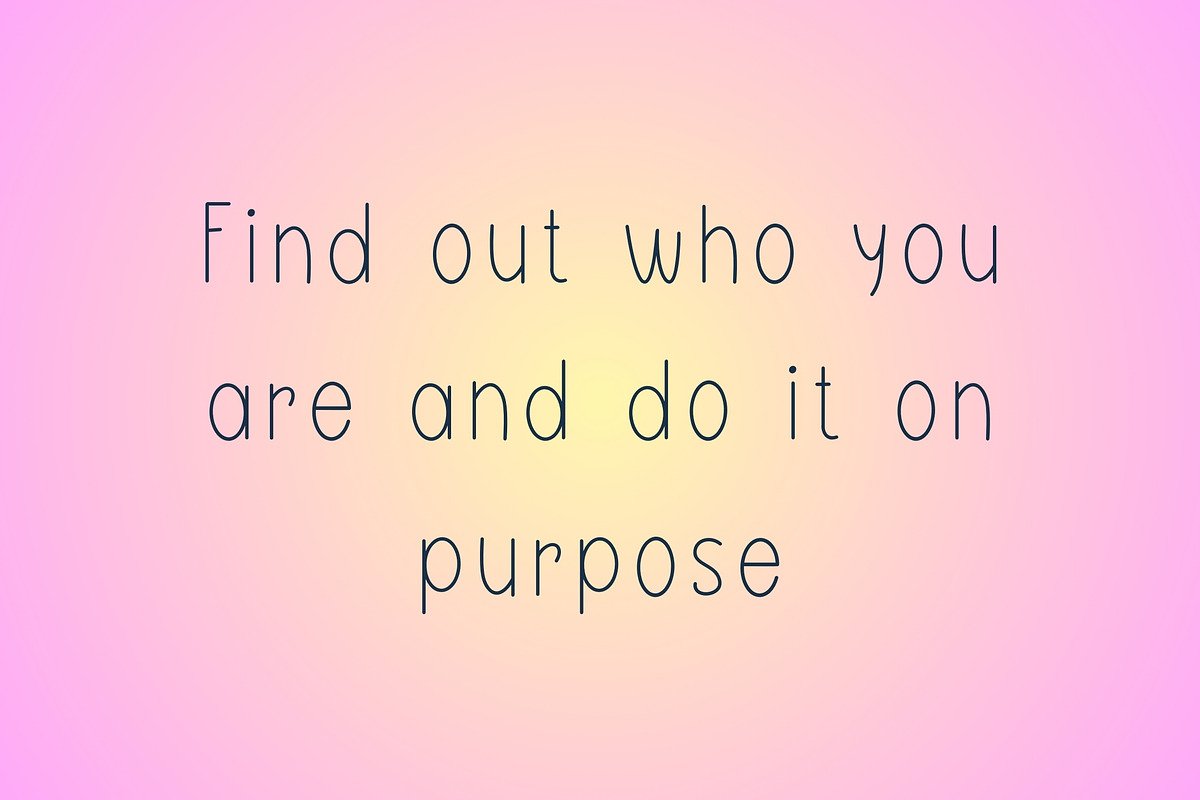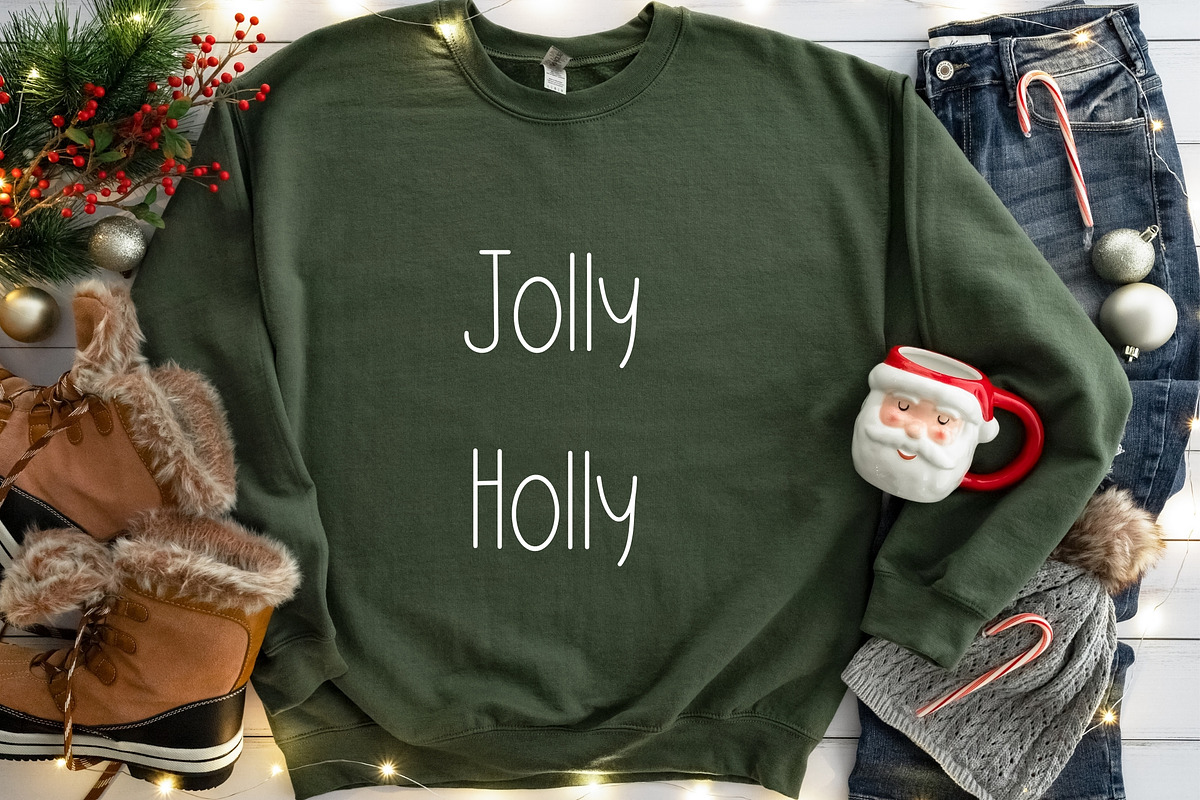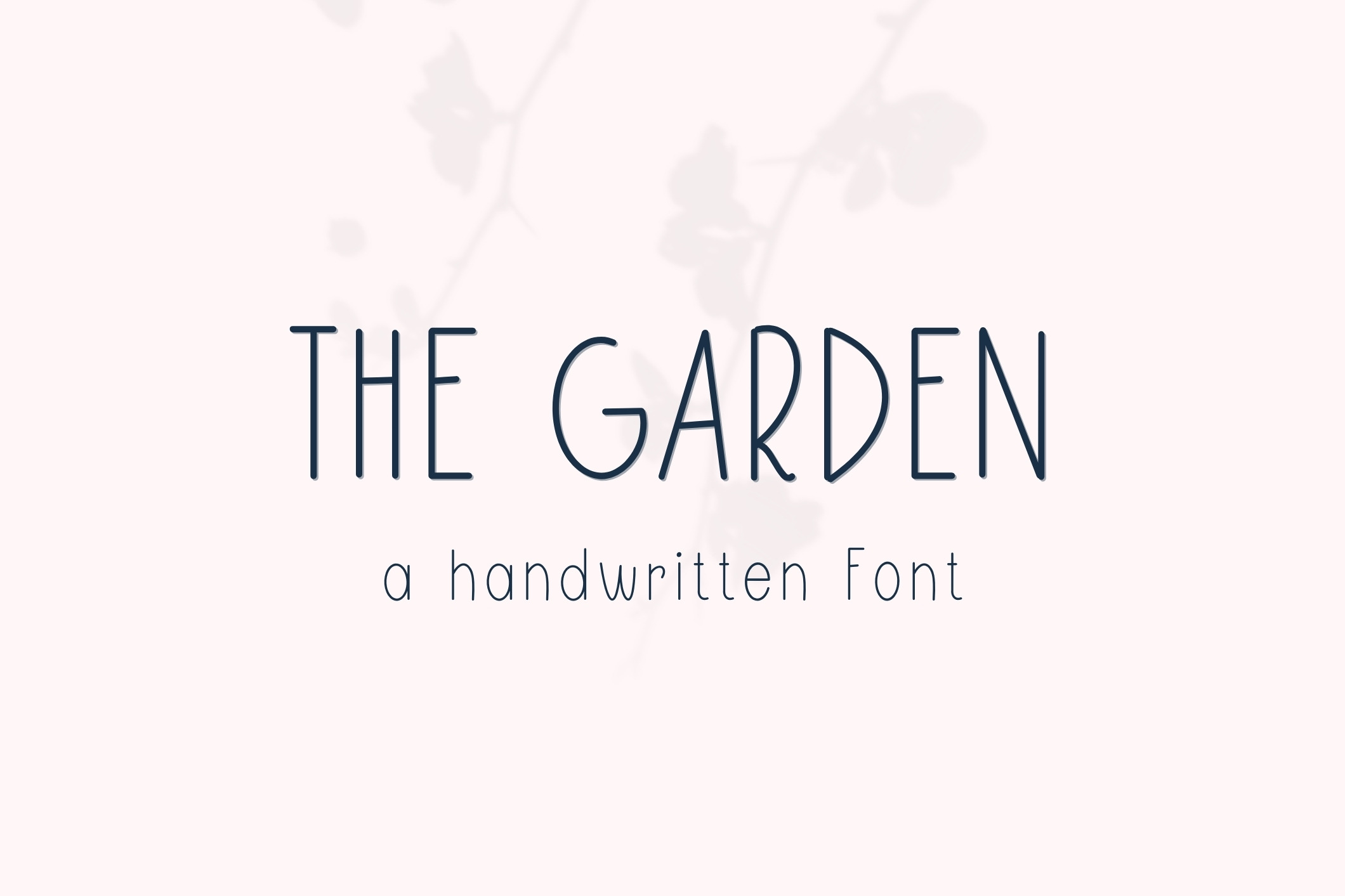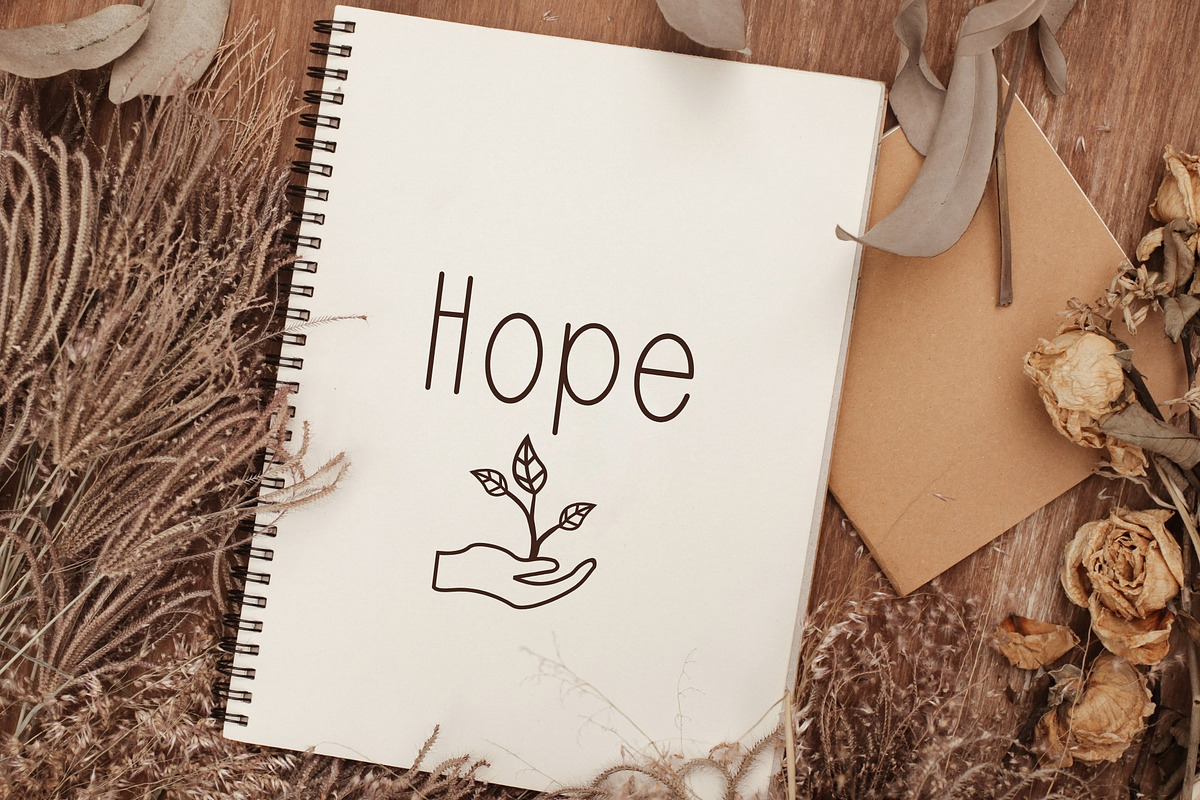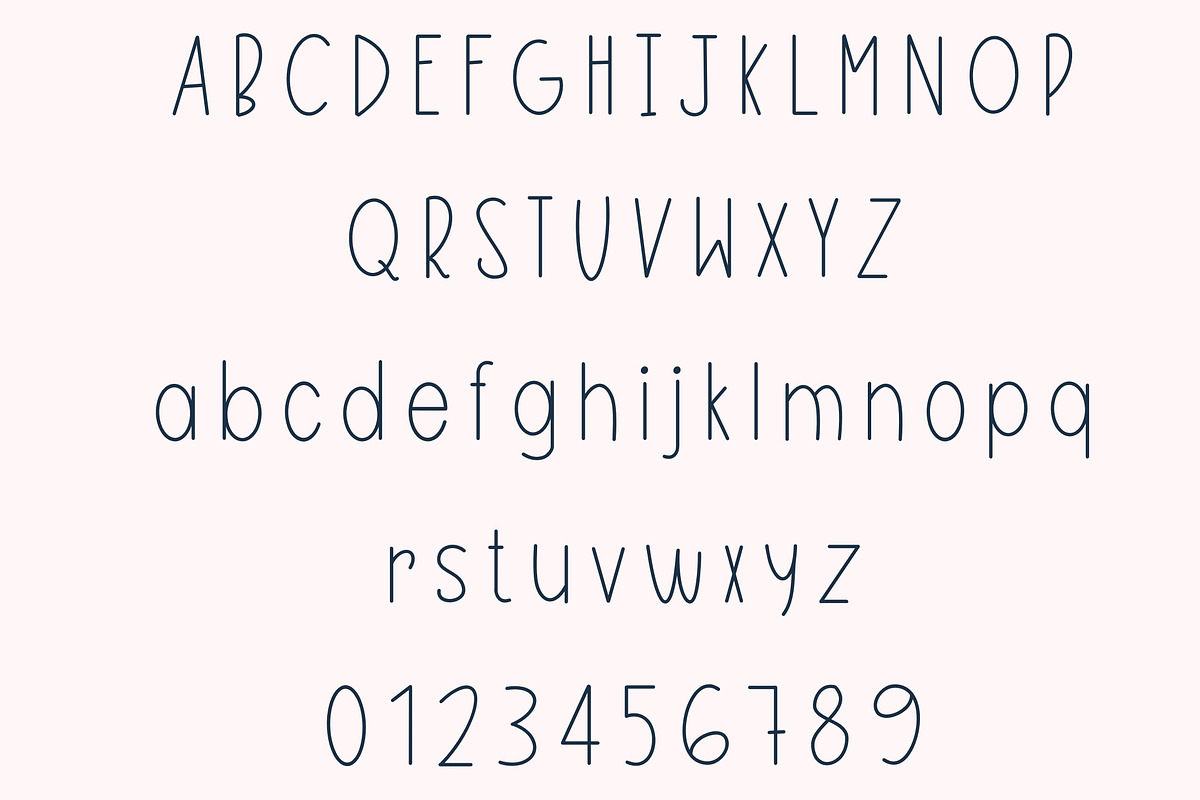
The garden - Handwritten font
The garden is a Handwritten font.
This font is perfect for Students, teachers, planners, notes, cricut and more.
Features: Uppercase Lowercase Numbers